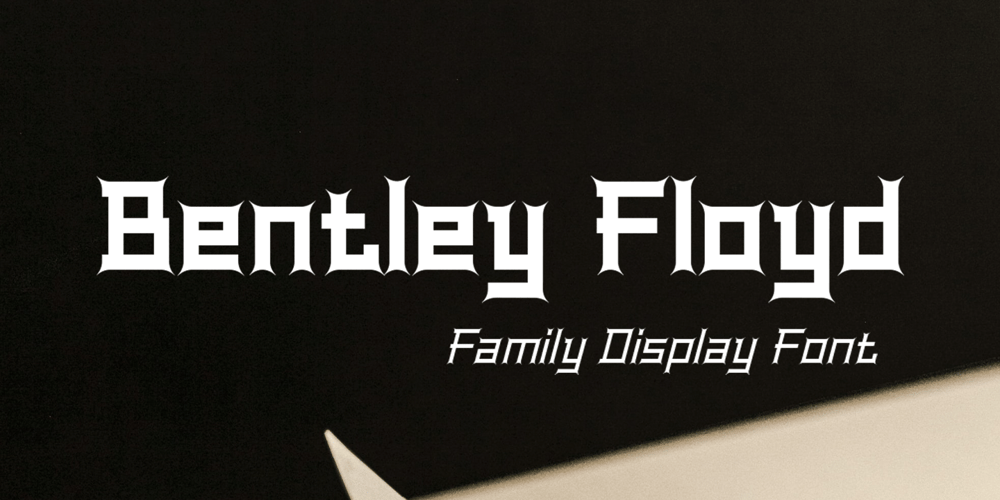
Bentley Floyd Font Family was designed by Sidik Sidik and published by Differentialtype. Bentley Floyd contains 18 styles and family package options. Bentley Floyd is a display font family designed to enhance the appearance of any document or presentation you create. This font can also be used for logo fonts, brochures, pamphlets, billboards, book covers, magazine covers, or product promotions. This font will support the appearance of every product promotion that you make. This font consists of 18 styles from thin to black, which will add more options to your mix.